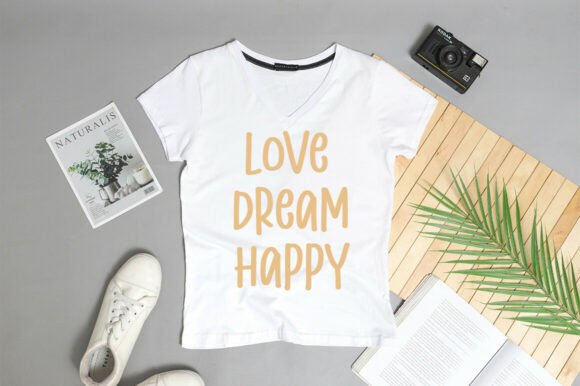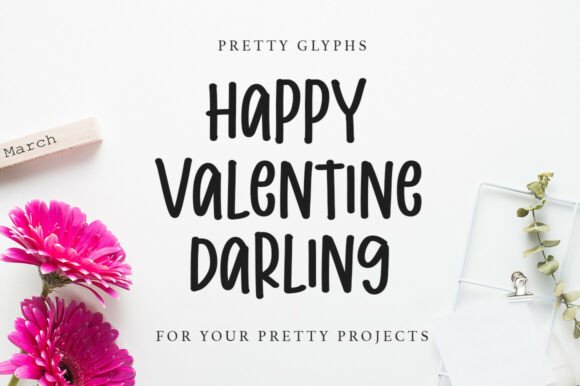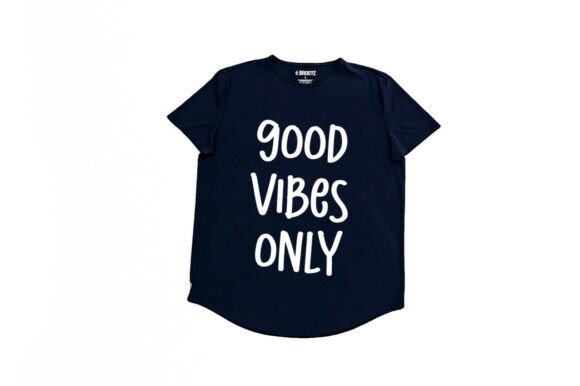
Introducing the Grandest Brush Font: Elevate Your Designs with Bold, Expressive Style
Are you tired of using the same old fonts that lack personality and flair? Look no further than the Grandest Brush Font, a stunning handwritten brush font that’s designed to make your designs stand out from the crowd. Inspired by real brush lettering, this font is crafted to feel bold, expressive, and effortlessly stylish, making it perfect for creatives who want to add a touch of authenticity and modernity to their work.
The Art of Imperfection: Natural Strokes and Dynamic Movement
One of the key features that sets the Grandest Brush Font apart is its natural, handcrafted texture. Each character is carefully crafted to mimic the imperfections and nuances of real brush lettering, with dynamic strokes and movement that give your designs a sense of energy and spontaneity. This font is not about precision or perfection – it’s about embracing the beauty of imperfection and using it to create something truly unique and eye-catching.
Perfect Balance: Casual Freedom and Modern Aesthetics
The Grandest Brush Font strikes the perfect balance between casual freedom and modern aesthetics, making it an incredibly versatile font that can be used in a wide range of design applications. Whether you’re working on branding, social content, or any other type of project, this font brings a level of sophistication and style that’s sure to impress. Its bold, expressive characters are perfect for headlines and titles, while its more delicate strokes and nuances make it suitable for body text and smaller design elements.
Designed for Creatives: Strong Personality and Authentic Vibes
The Grandest Brush Font is designed specifically for creatives who want to add a touch of personality and authenticity to their designs. Whether you’re a graphic designer, artist, or crafter, this font is the perfect tool for anyone who wants to create unique, eye-catching designs that stand out from the crowd. With its powerful, confident characters and artistic vibe, this font is sure to inspire your creativity and help you bring your ideas to life.
Make Your Message Unforgettable: Confidence, Artistry, and Style
So why settle for a boring, generic font when you can make your message unforgettable with the Grandest Brush Font? This font is not just a design element – it’s a statement piece that can elevate your entire brand or design aesthetic. With its bold, expressive characters and natural, handcrafted texture, it’s the perfect way to add confidence, artistry, and style to your designs. Whether you’re working on a new branding campaign or just want to add some flair to your social content, this font is sure to make your message stand out and leave a lasting impression.
- Handwritten brush font with natural strokes and dynamic movement
- Handcrafted texture for a unique, authentic look and feel
- Bold, expressive characters perfect for headlines and titles
- Perfect balance between casual freedom and modern aesthetics
- Designed for creatives who want strong personality and authentic vibes
- Versatile and suitable for a wide range of design applications